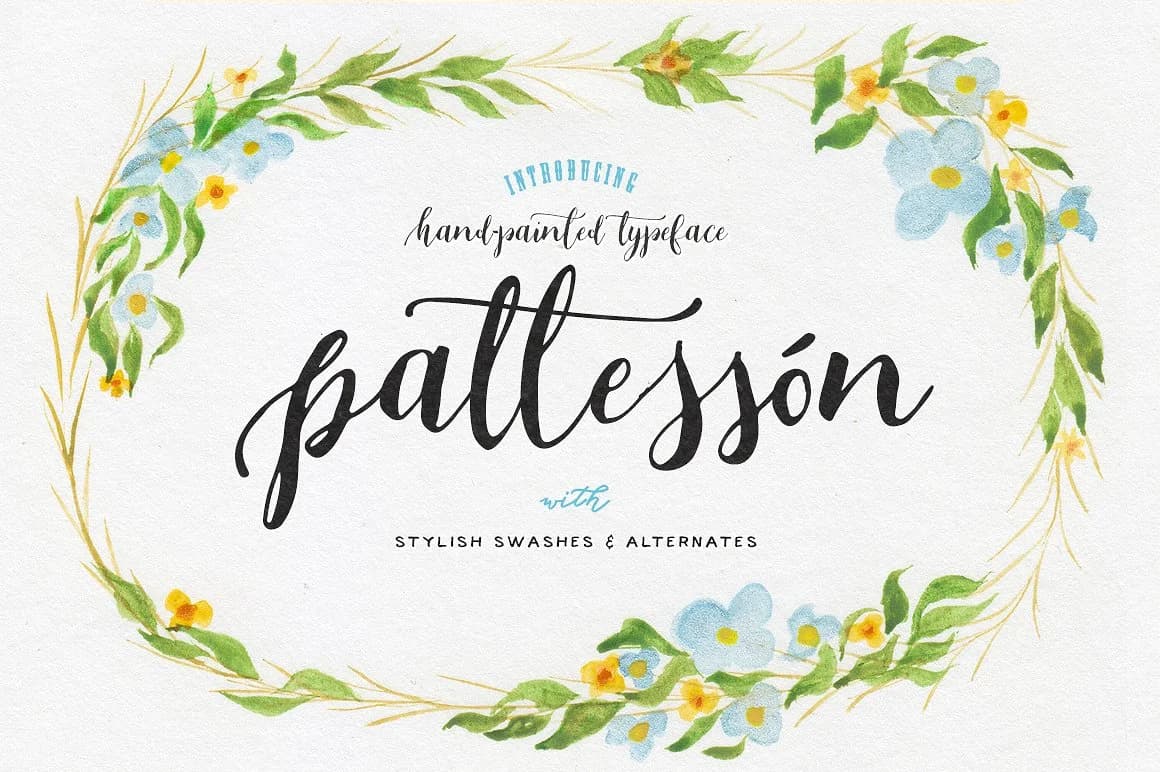
About Patteson Font
Patteson by Blessed Print is a flowing script typeface that combines hand-lettered warmth with contemporary elegance. Its fluid character forms and natural rhythm make it an excellent choice for designers seeking genuine personality without sacrificing sophistication. The typeface captures an authentic handwritten quality that feels both refined and approachable, bringing a distinctly human touch to digital and print projects alike.
This script typeface performs beautifully across multiple creative applications and industries. Consider it for wedding invitation suites and save-the-date cards where couples want an intimate, heartfelt aesthetic that truly reflects their personal style and vision. Custom stationery projects gain significant character and warmth from its distinctive letterforms, while boutique product packaging and handmade gift labels benefit tremendously from its organic, crafted feel. Patteson also excels in branding scenarios where a more human quality enhances brand warmth and meaningful customer connection, and in social media graphics where its distinctive visual personality captures attention and encourages engagement from your target audience.
Patteson Font is a script font that shines as a display or heading face. Pair it with a clean sans-serif or serif font for body text β the contrast creates a clear hierarchy while the two styles stay balanced and easy to read.